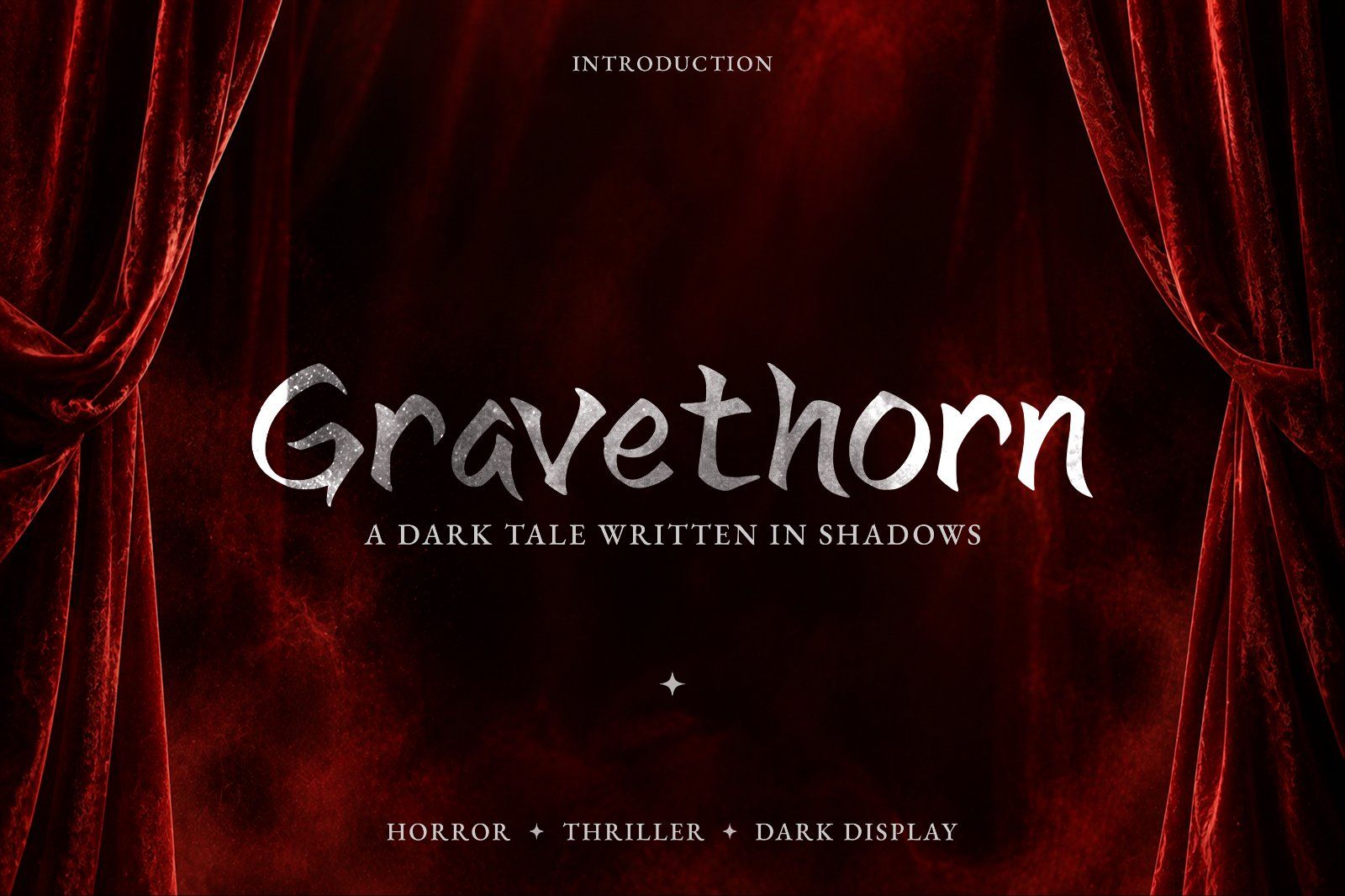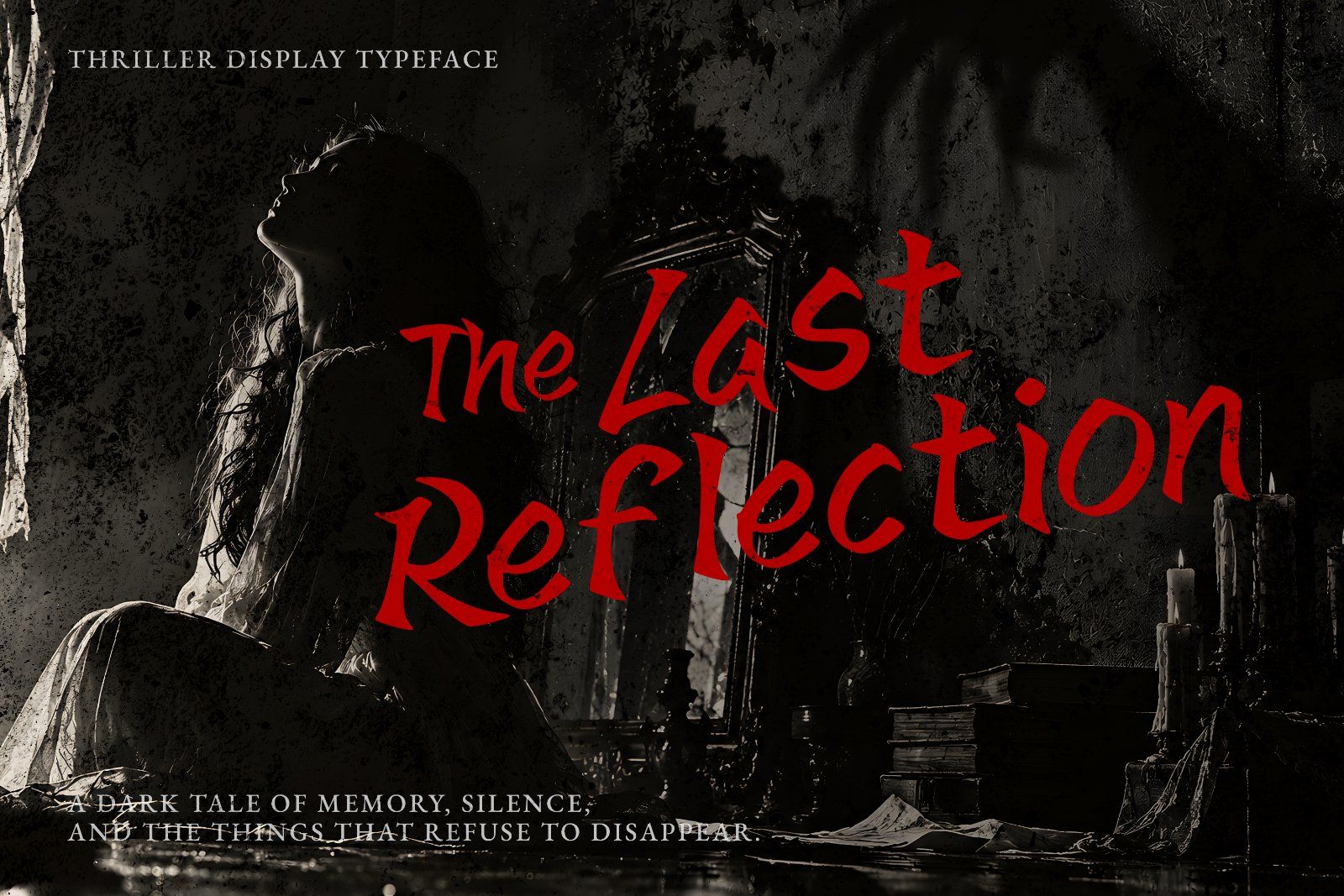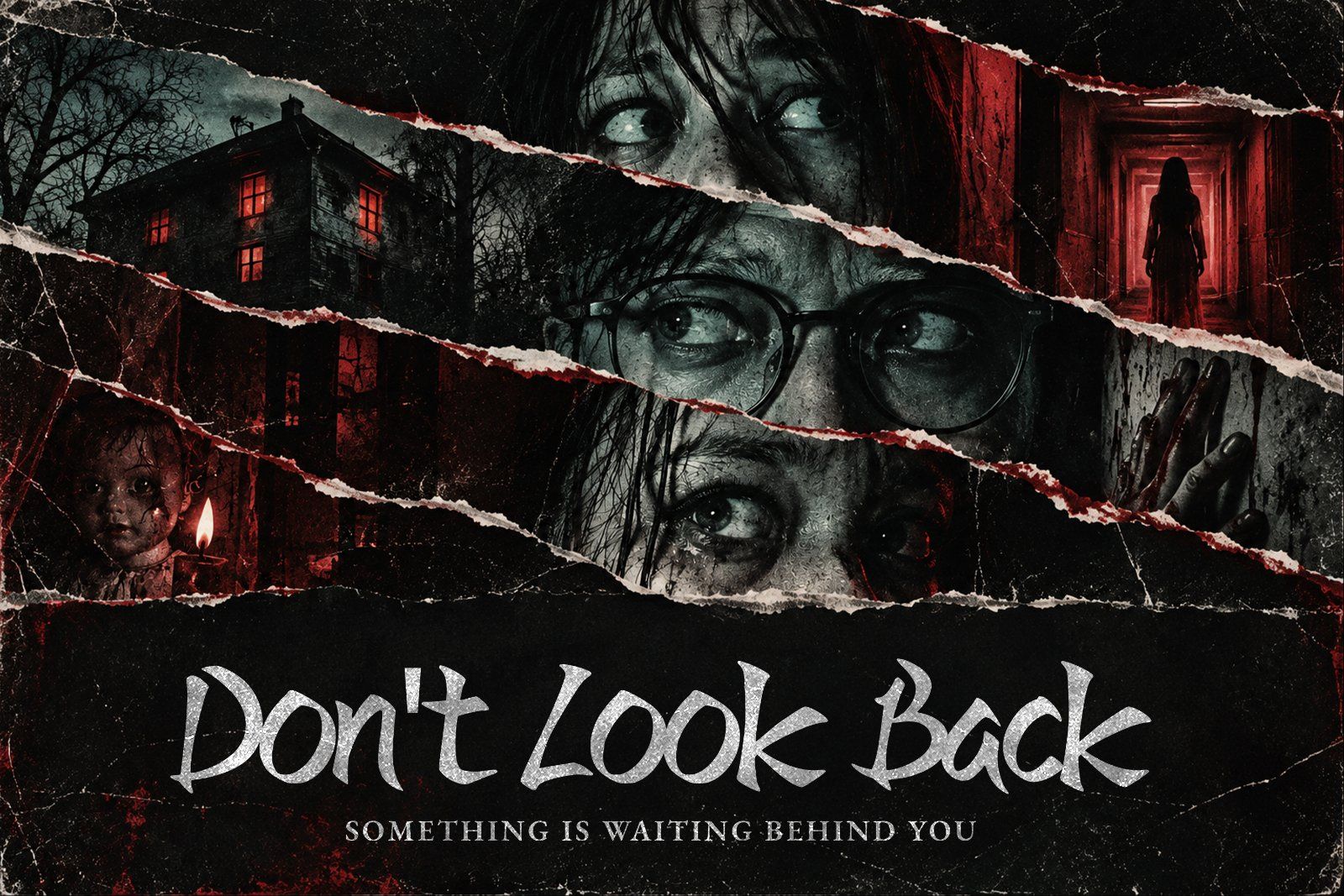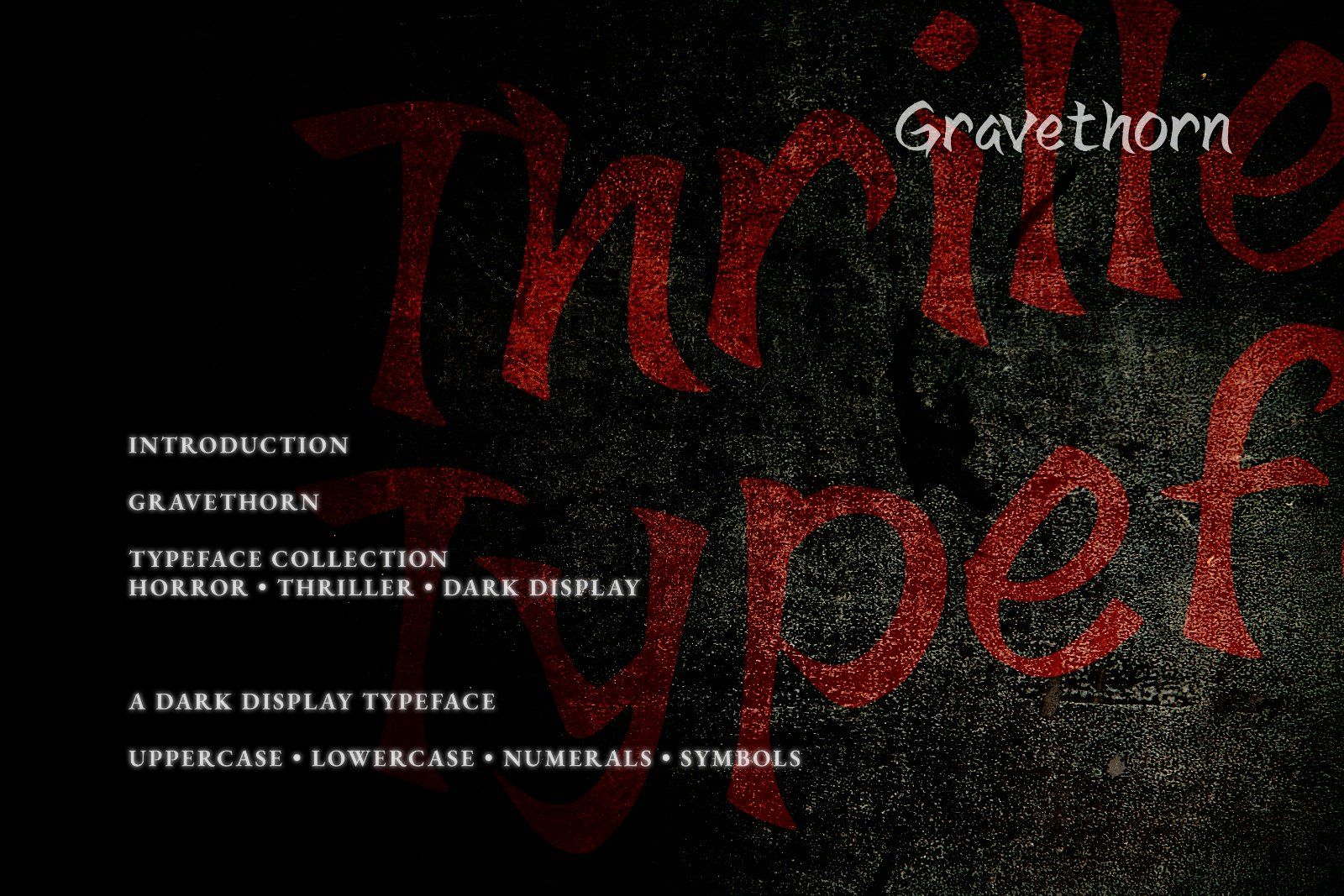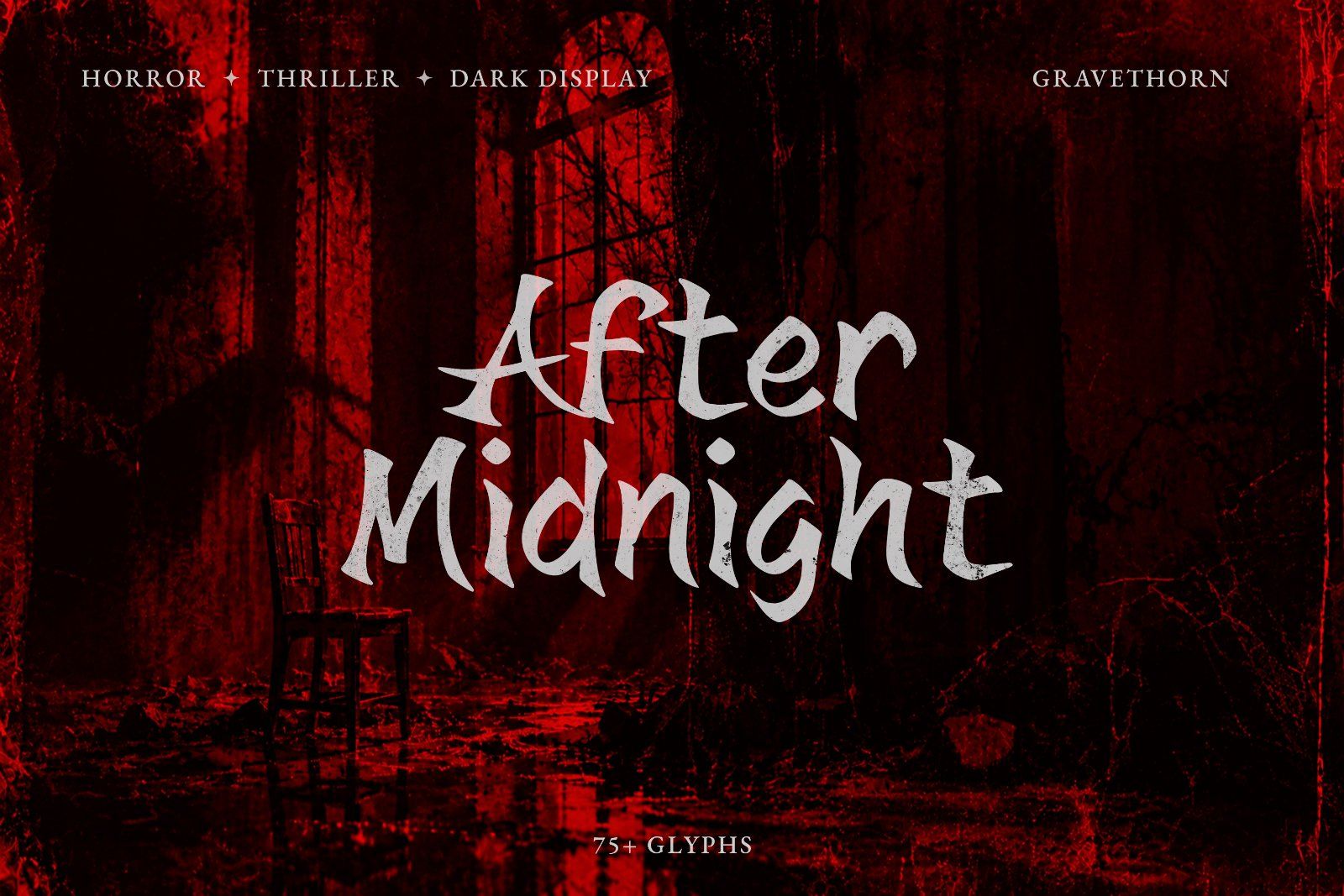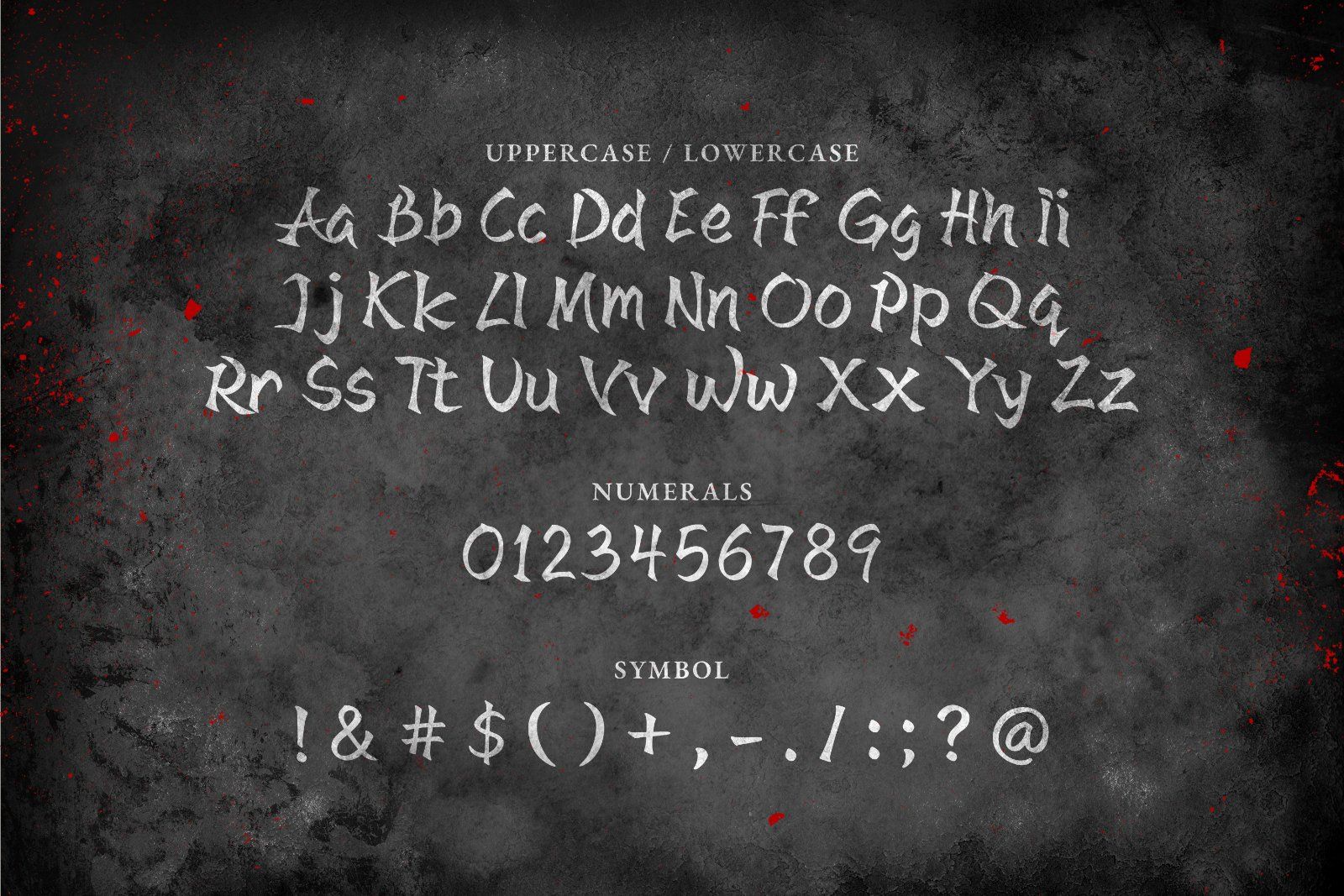
MarketplaceFontsFont Gravethorn — Dark Gothic Display Typeface
Gravethorn is a dark gothic display typeface featuring sharp, dramatic letterforms and an atmospheric medieval character. Designed for horror, thriller, fantasy, metal, and dark-themed creative projects.
• Full set of uppercase and lowercase letters
• Numbers, punctuation, and symbols
• Handcrafted rough brush textures with natural imperfections
• Horror & Thriller Titles
• Book & Novel Covers
• Movie & Film Titles
• Fantasy Branding
• Heavy Metal & Music Artwork
Gravethorn is made for dark stories, mysterious worlds, and designs written in shadows.